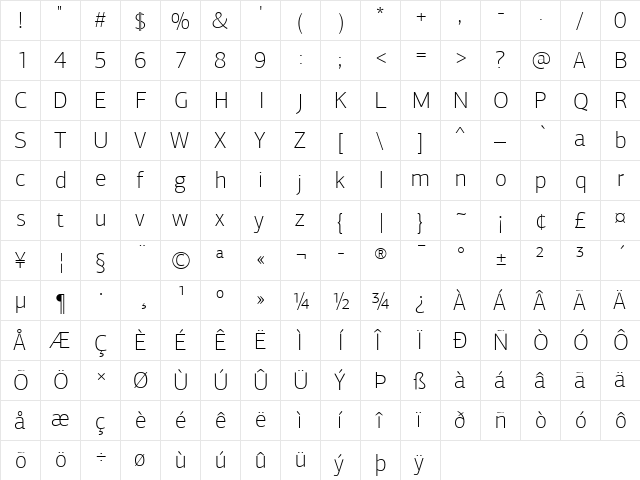
PF Agora Sans Pro Thin Font Preview
PF Agora Sans Pro Thin
PF Agora Sans Pro Thin Font Details
| Style | Thin |
| Foundry | Parachute蠗orldwide |
| Designer | Panos Vassiliou |
Design Context for PF Agora Sans Pro Typeface
PF Agora Sans Pro offers clean, dependable letterforms without strong stylistic allegiance, making it a practical choice for designers who need flexibility. Its slender proportions lend an understated elegance to any composition.